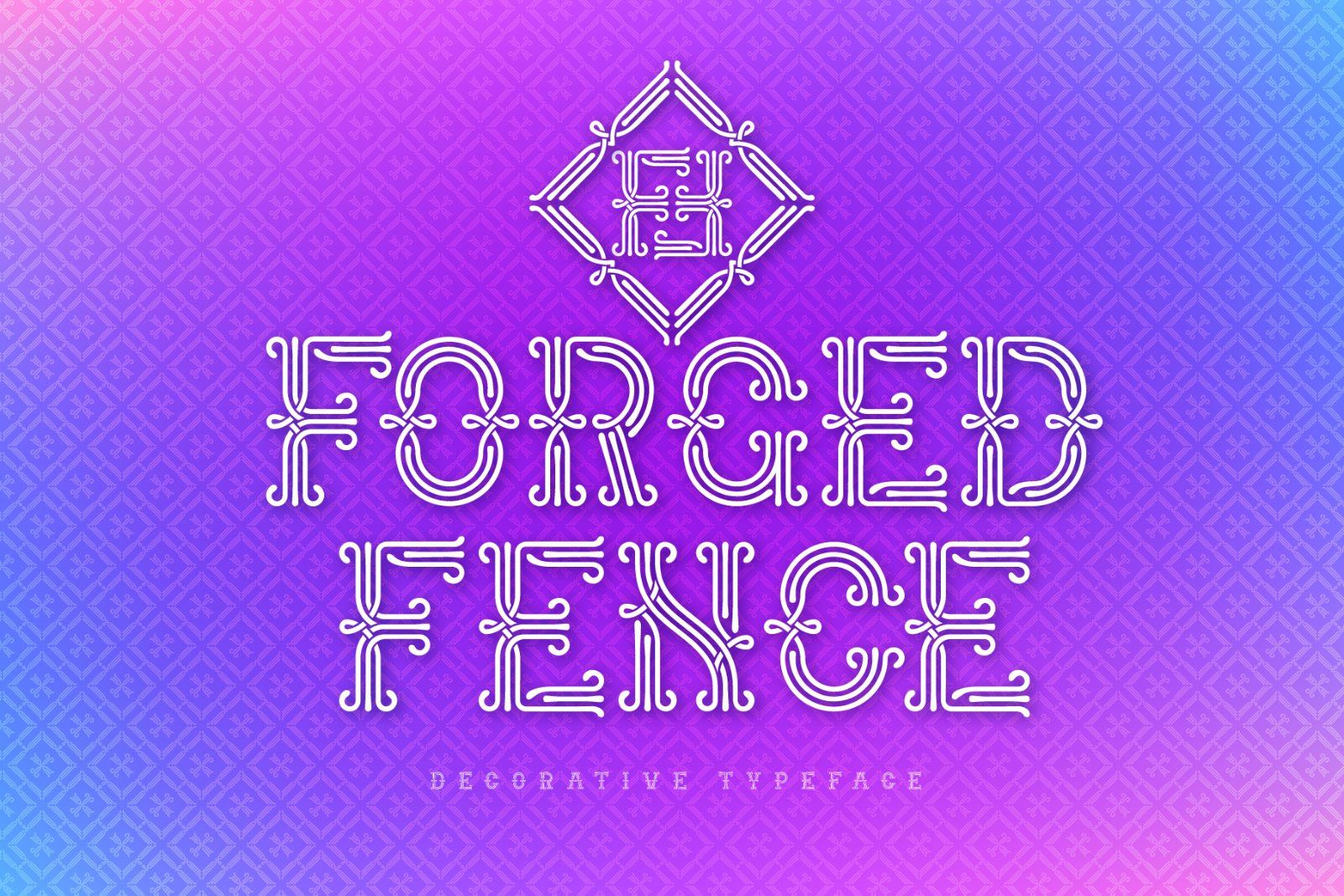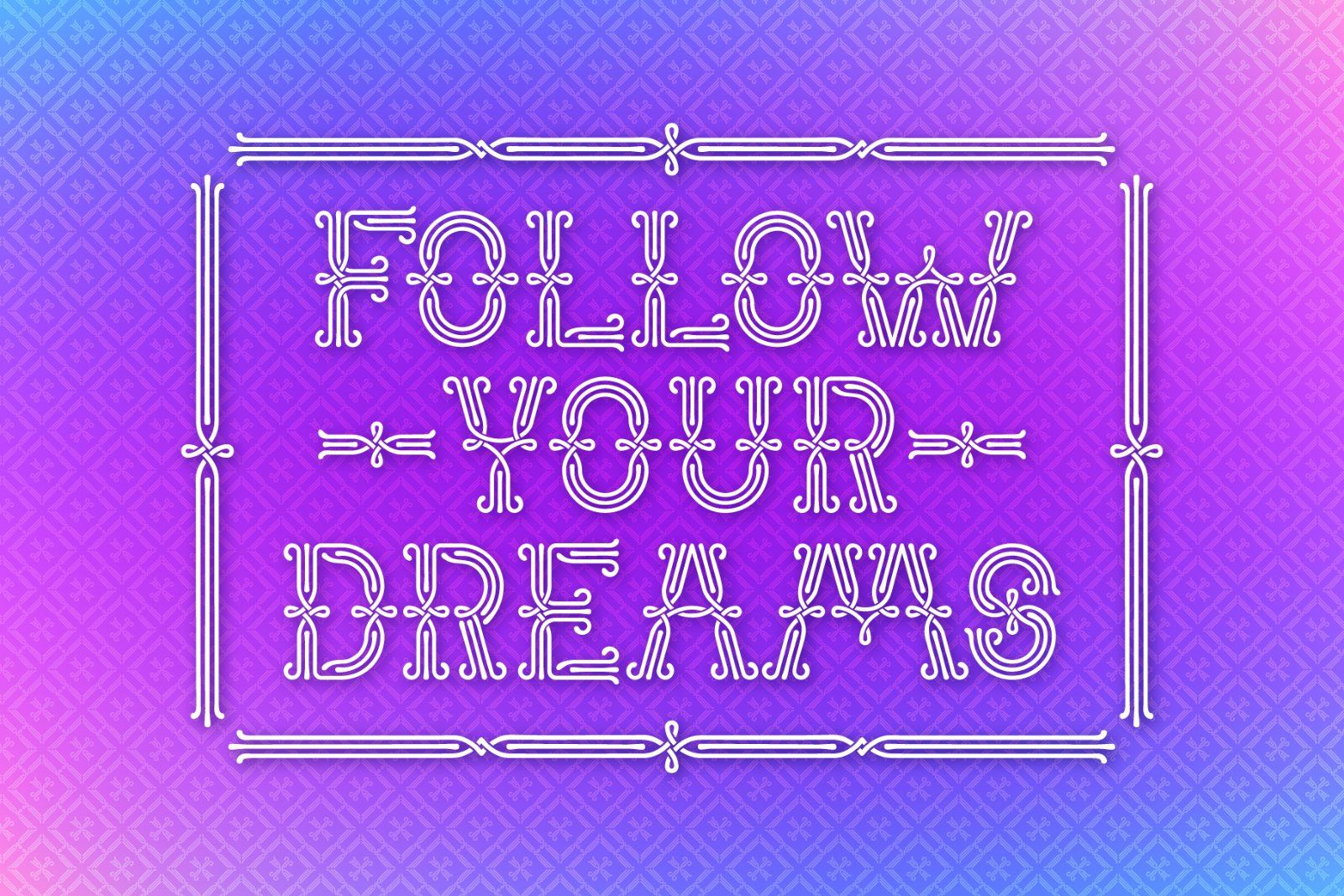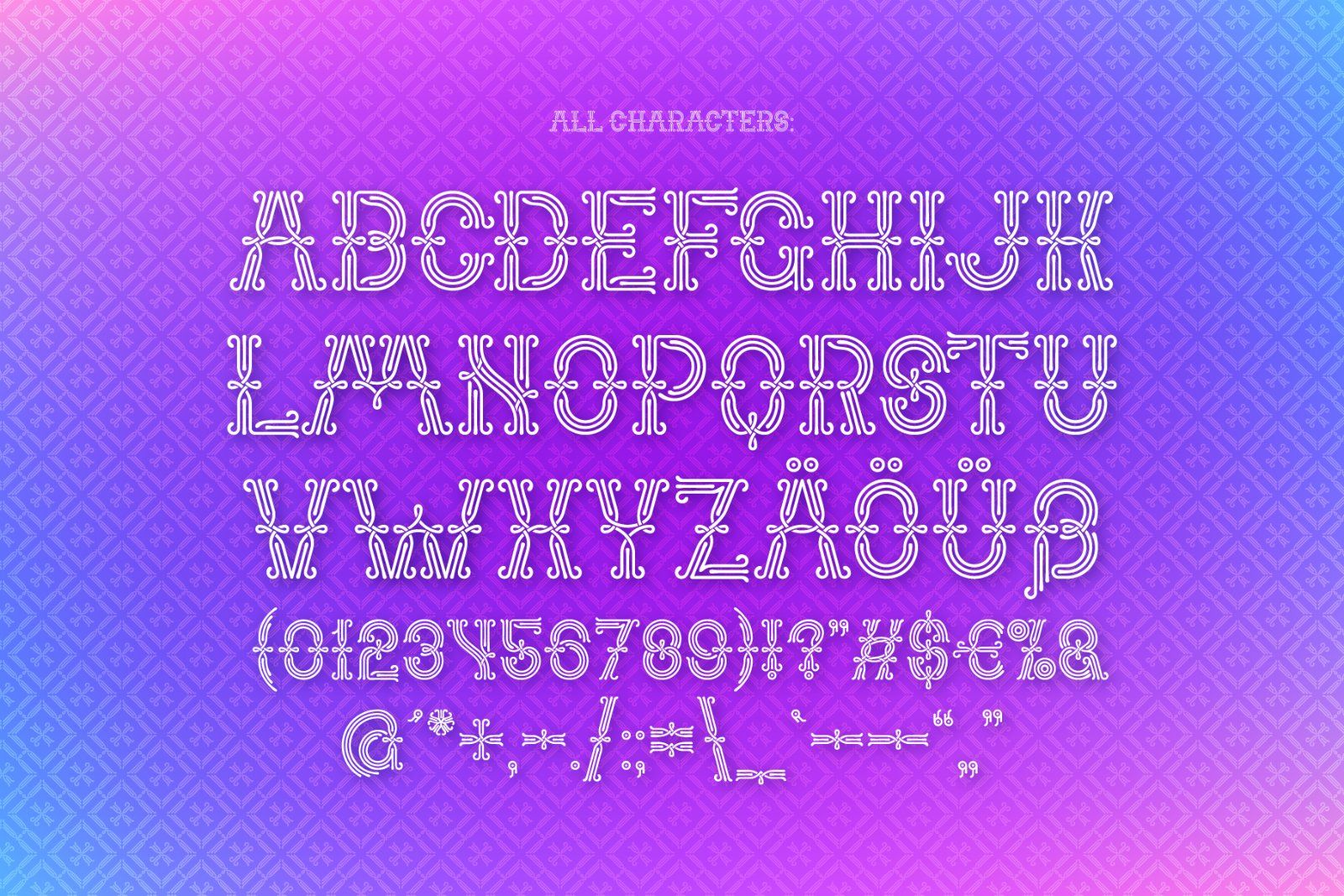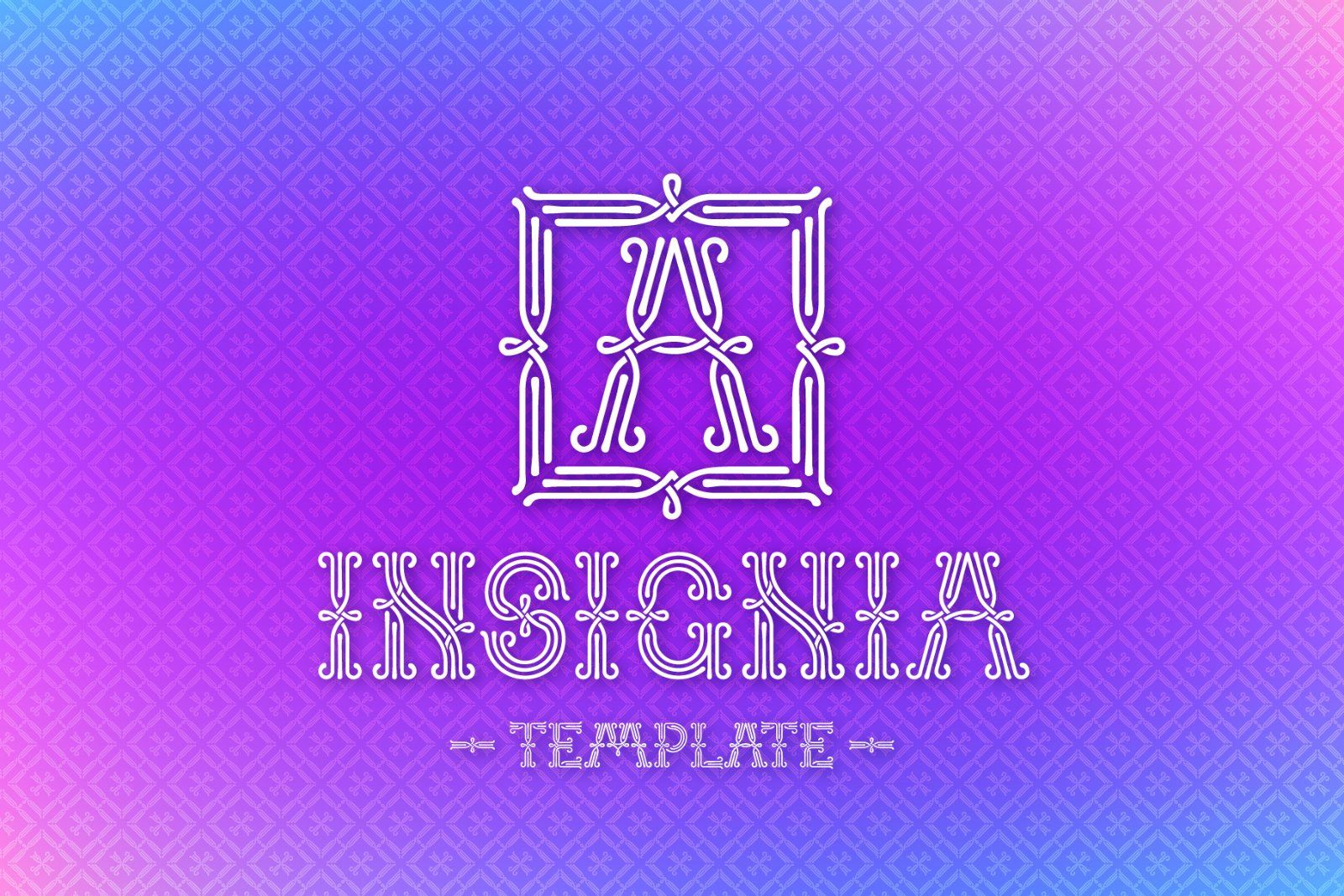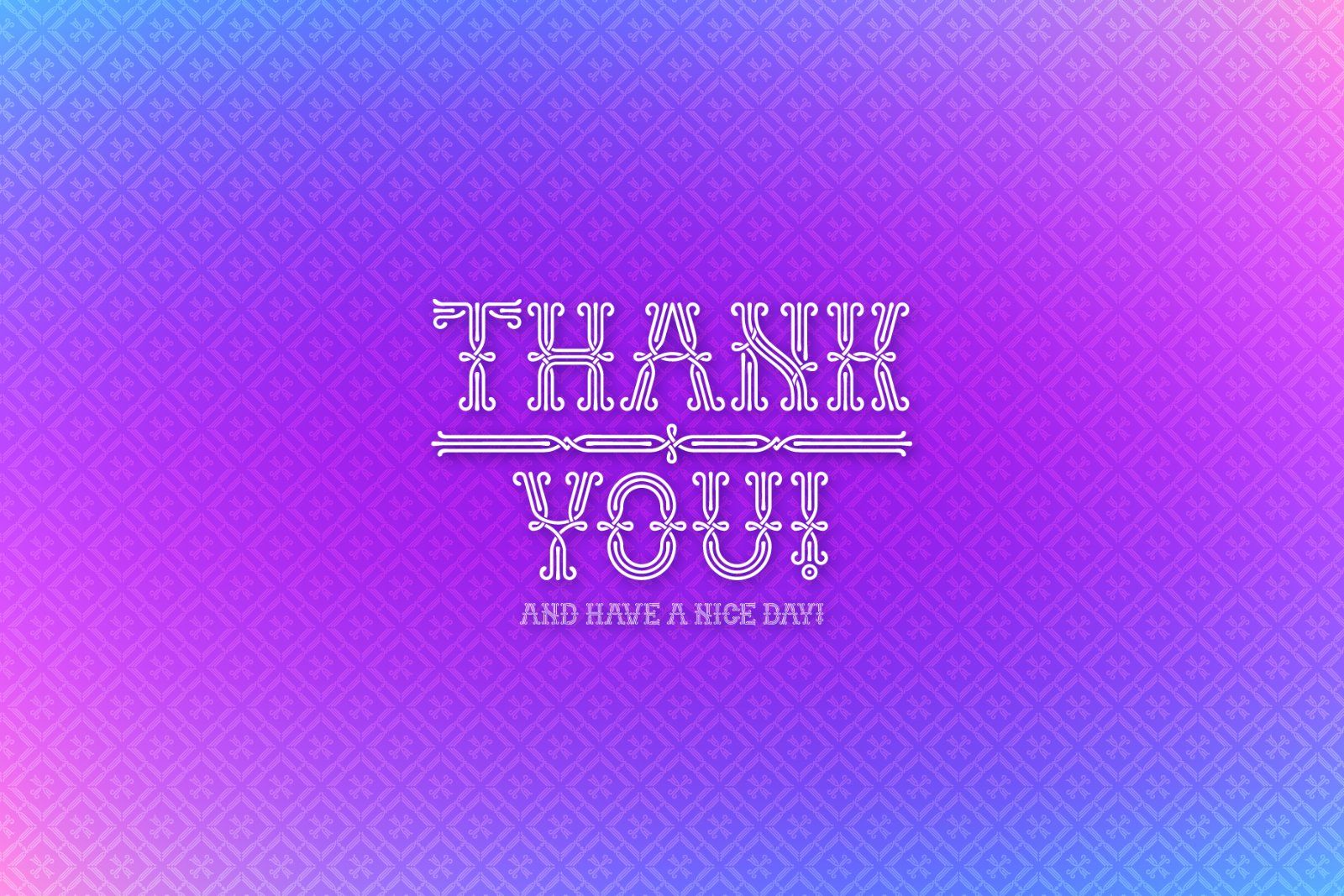
Hi. Introducing a Forged Fence font. It has a classic decorative look and few useful bonus files. A lettering composition with all design elements (background pattern and frame). Also an editable insignia template is included in Ai CS6-CC file format.